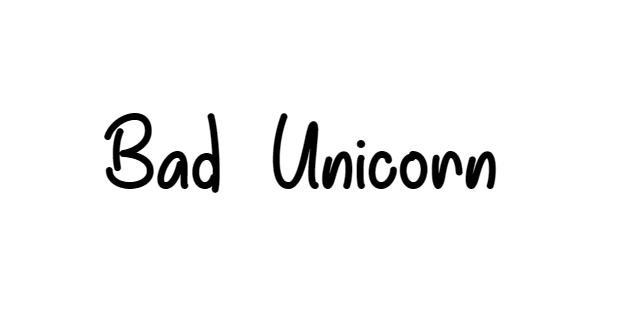
Bad Unicorn
Bad Unicorn is a calligraphy font made by Misti's Fonts (2018). Its flowing, pen-made letters give names and short phrases a personal, polished look. It's a free download, and you can try it with your own text in the preview above first.
What You Can Type With Bad Unicorn
Bad Unicorn covers the full alphabet in upper and lowercase, plus all ten numbers, so you can set names, dates and prices without switching fonts. Everyday marks like &, !, ? and @ are there too. Thanks to its accented letters, it also works for Spanish, French, German, Portuguese and Italian, not just English.
Where Bad Unicorn Works Best
Think of Bad Unicorn for wedding invitations, certificates and elegant quotes. Its lowercase letters are small compared to the capitals, so set it a size or two bigger than usual. The file has no kerning data, so in logos and big titles check pairs like AV, To and Wa and tighten the spacing by hand. Script fonts read best in short bursts, so keep it to names, titles and one-line quotes. Skip all caps: script capitals are drawn to start a word, not to fill one.
Does Bad Unicorn support accented letters?
Yes. Bad Unicorn includes the accented letters needed for Spanish, French, German, Portuguese and Italian, so it works for more than just English.